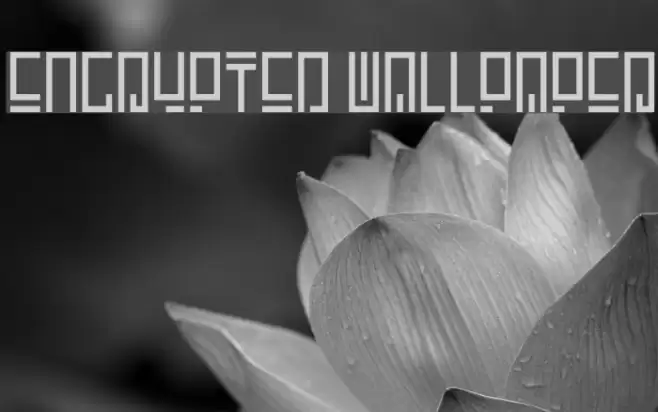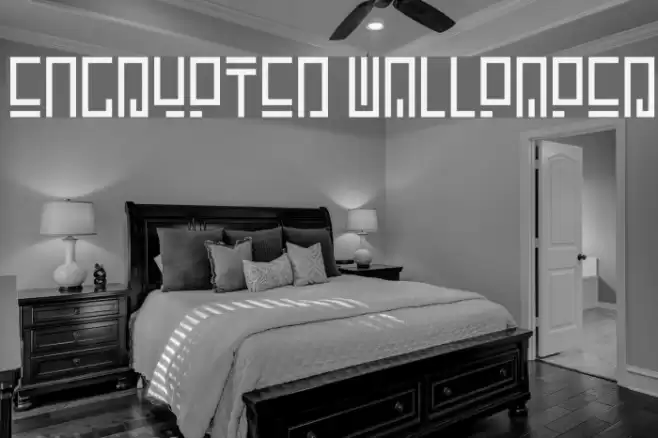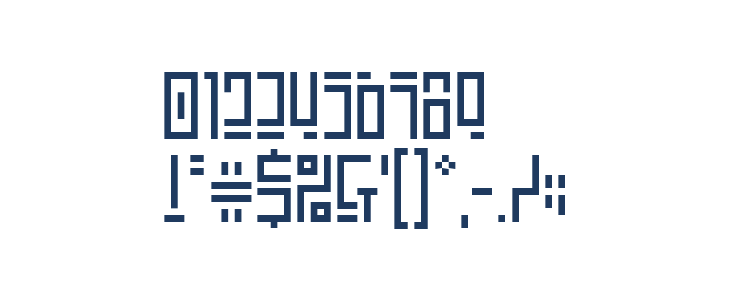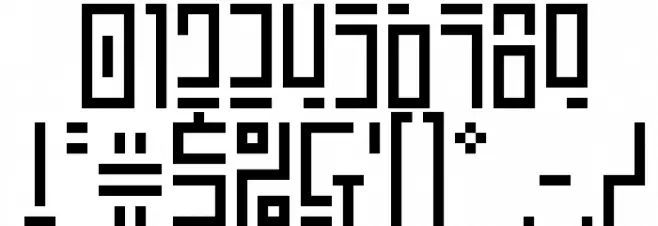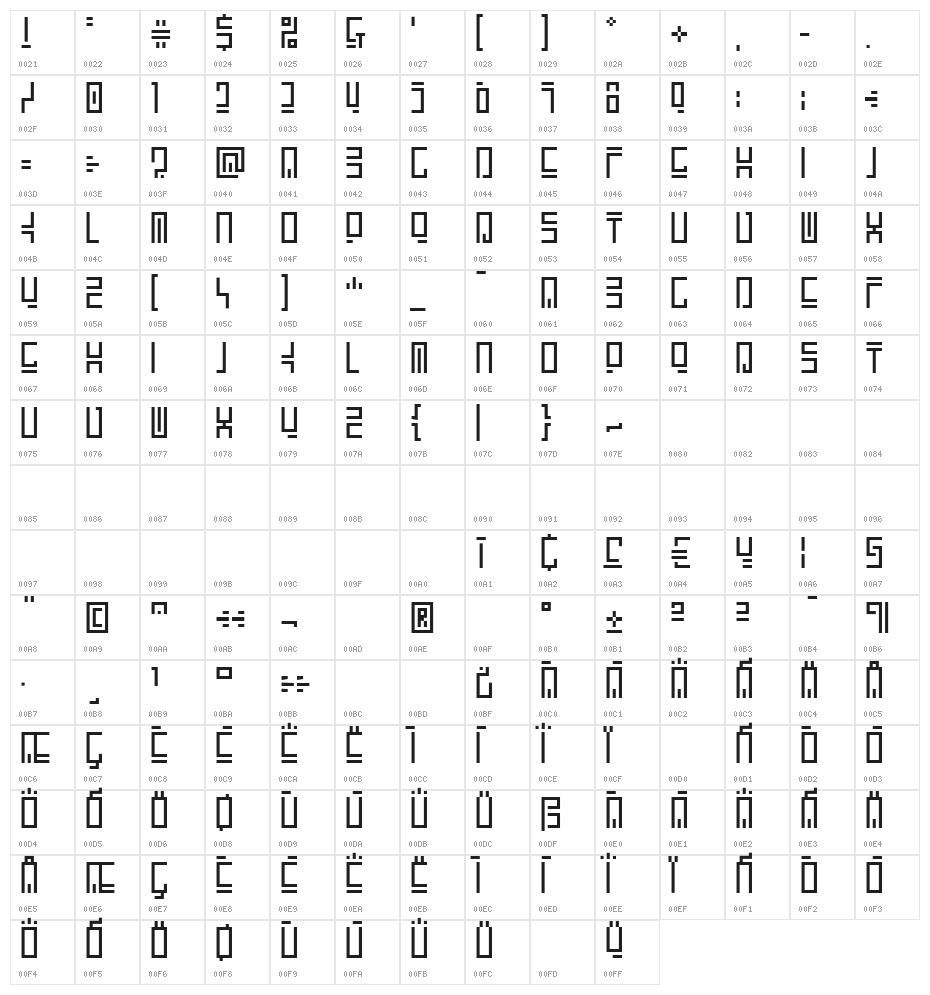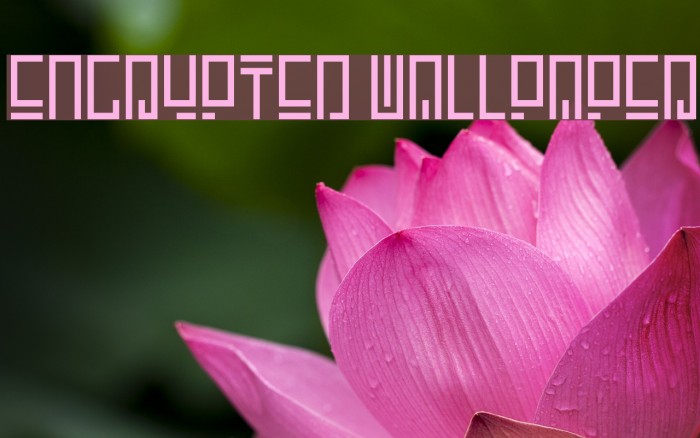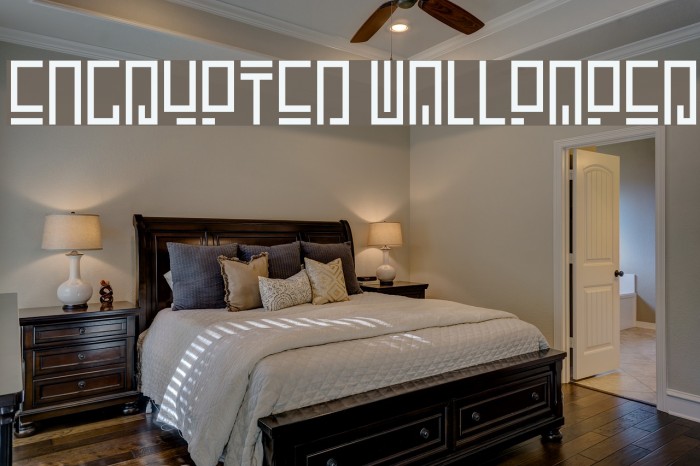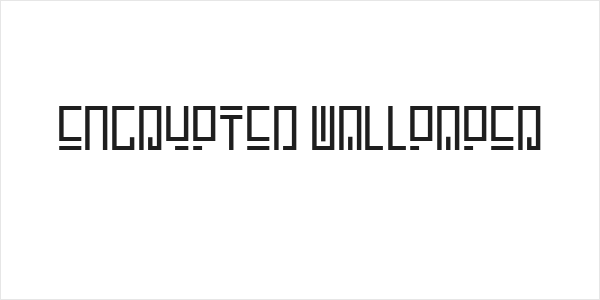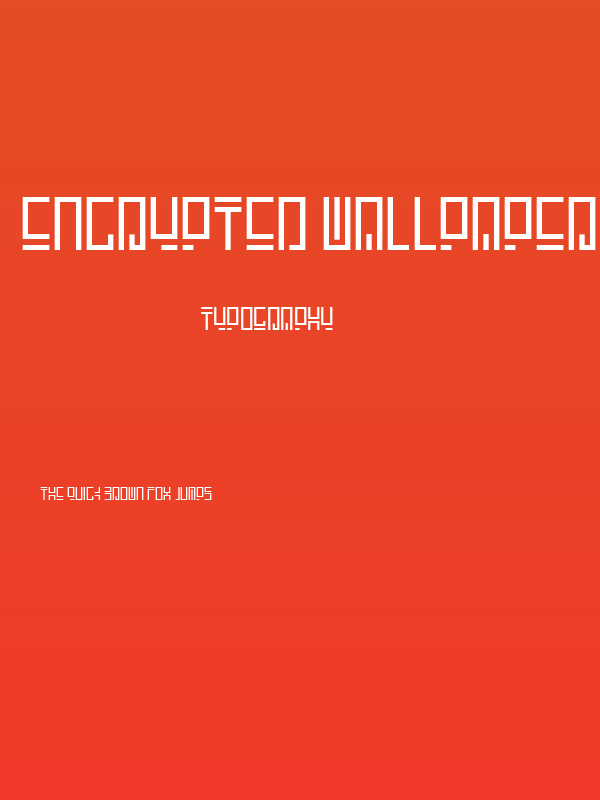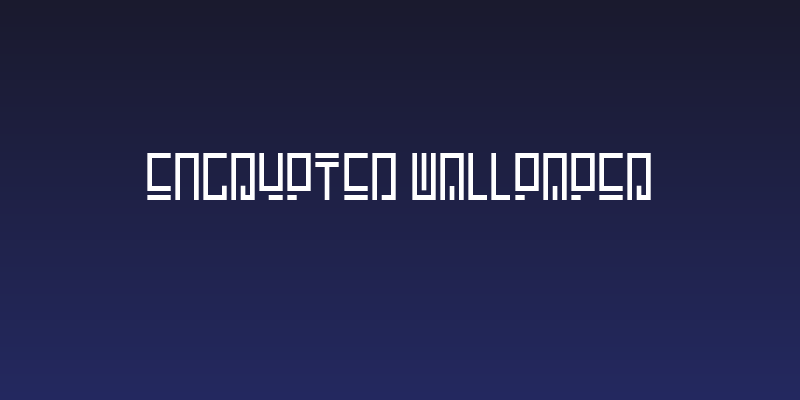
Encrypted Wallpaper Font
Encrypted Wallpaper Description
This font features a highly geometric and blocky design, characterized by its uniform stroke width and sharp angles. Each character is constructed using straight lines and right angles, giving it a futuristic and digital appearance. The letters and numbers are enclosed within a grid-like structure, enhancing its mechanical and structured look. The font lacks curves, emphasizing a rigid and technical style. It is reminiscent of early digital displays or pixel art, making it suitable for themes related to technology or retro computing. The special characters maintain the same blocky aesthetic, ensuring consistency throughout the character set.
A geometric, blocky font with a digital, futuristic style from Futuristic fonts.
- Proposed Projects: Ideal for technology-themed designs, retro gaming graphics, digital art projects, or any creative work requiring a futuristic or mechanical feel.
- Overall Style: Futuristic
- Use Case: Headlines, Logos, Digital Art